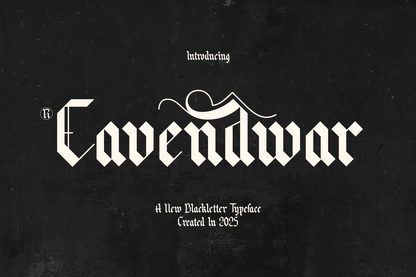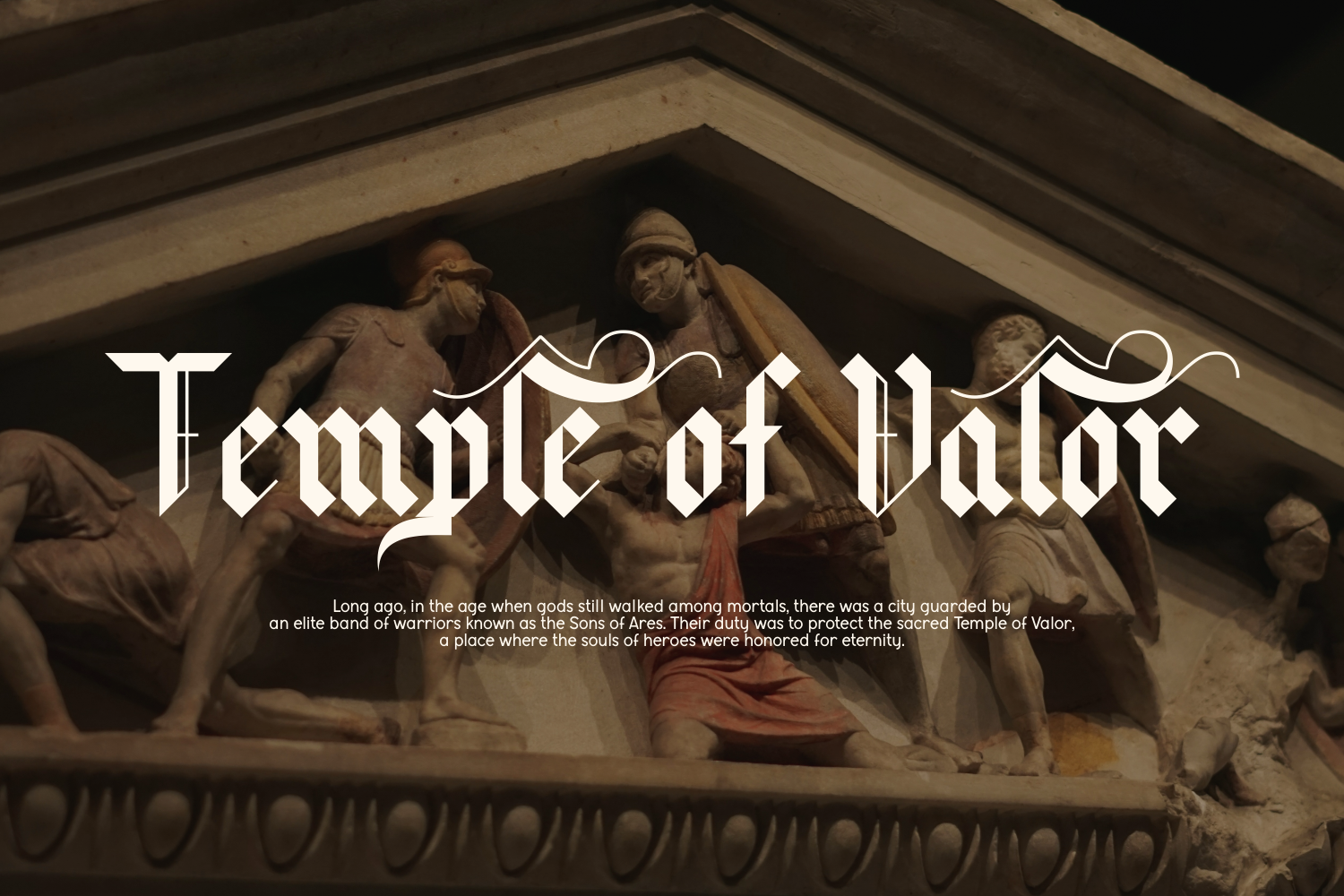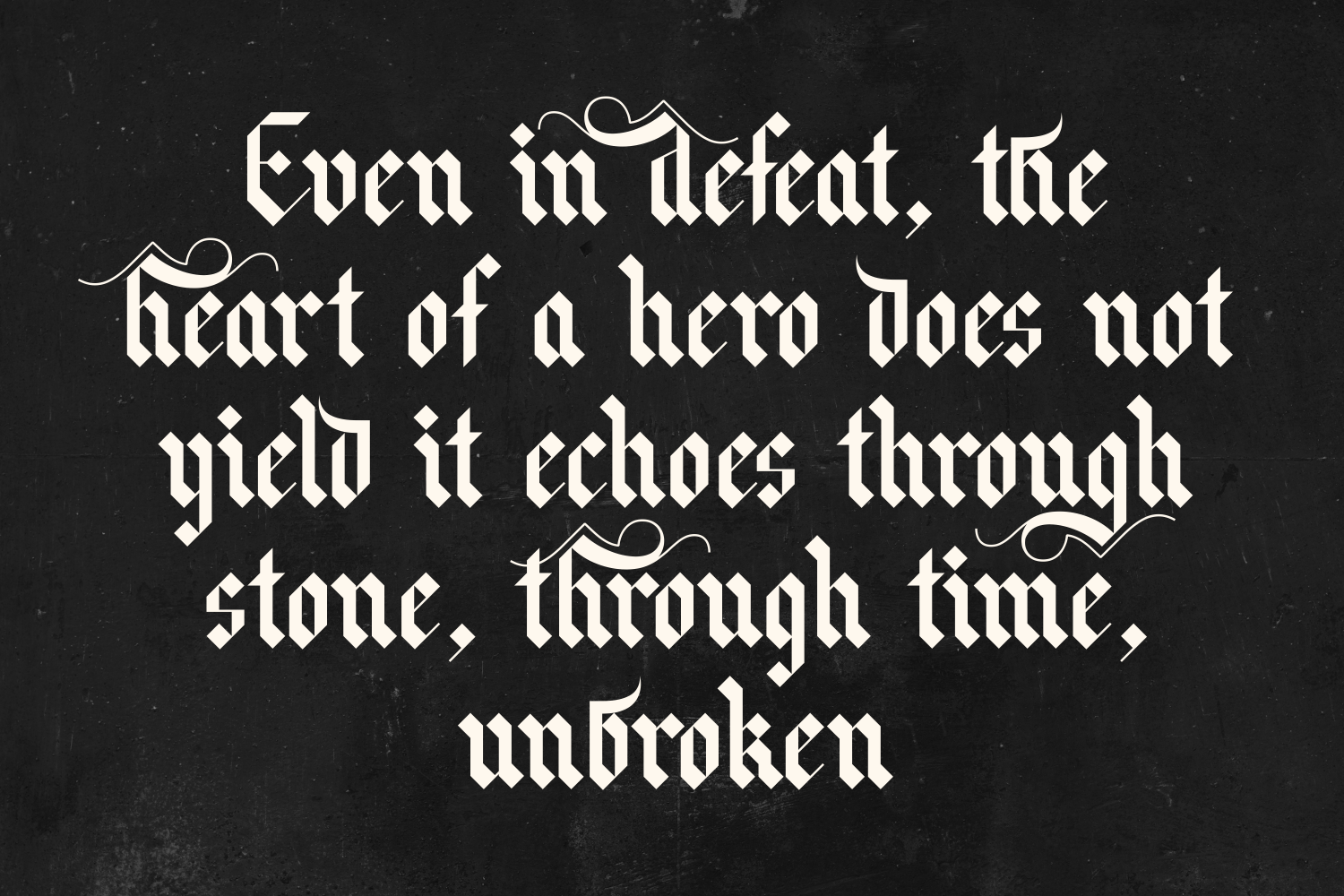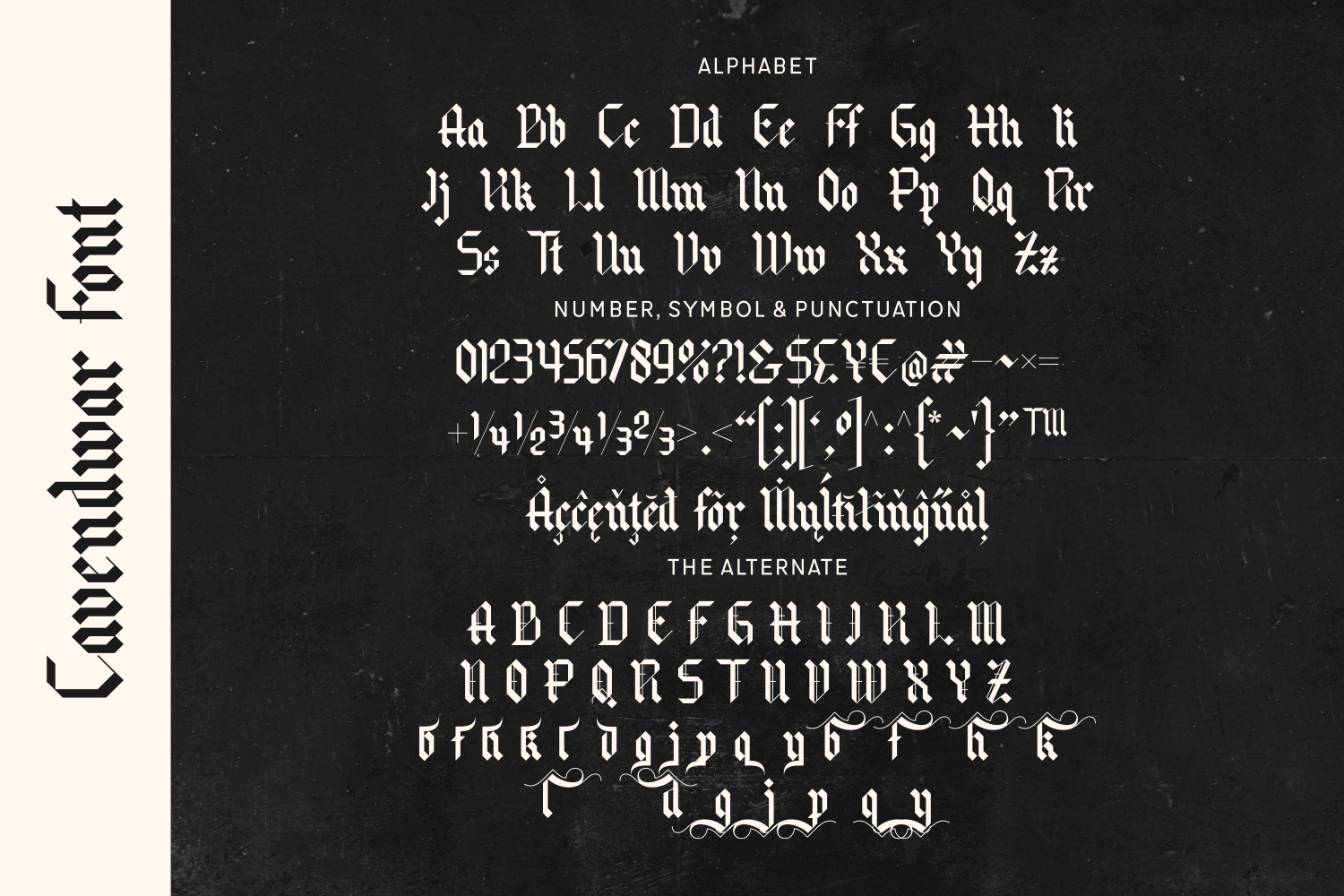
Cavendwar is a traditional blackletter typeface with rich historical charm and refined calligraphic strokes. Perfect for formal branding, vintage labels, book covers, or medieval-inspired projects, Cavendwar adds a touch of nobility and timeless craftsmanship to any design.